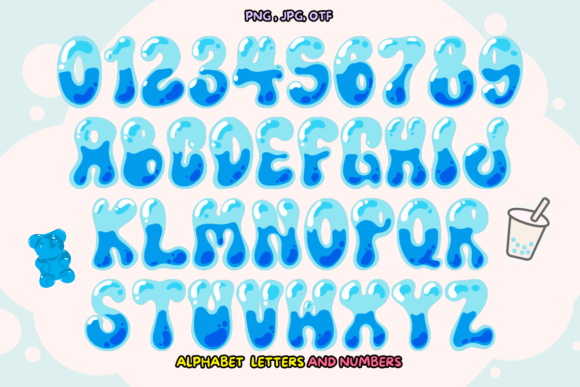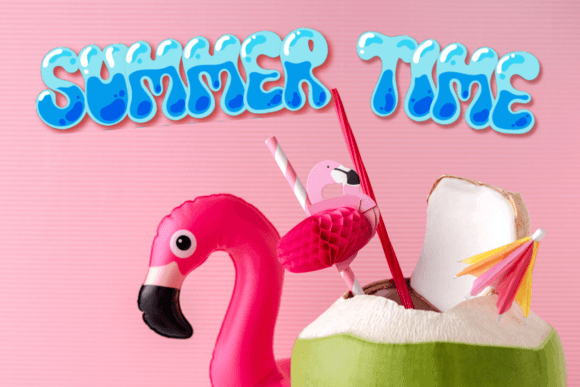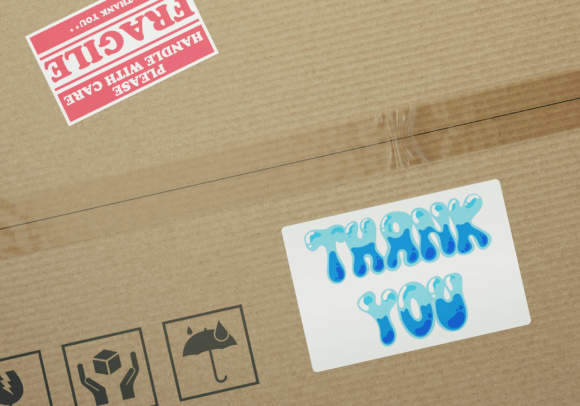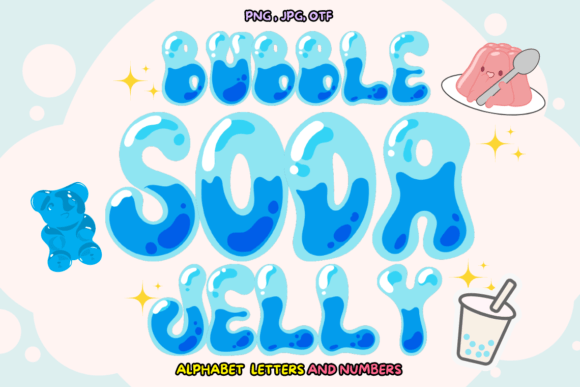
Introducing “Bubble Soda Jelly Color” Font: A Bubbly and Refreshing Handwritten Typeface
Are you tired of using the same old fonts in your designs? Do you want to add a fun and vibrant touch to your projects? Look no further than the “Bubble Soda Jelly Color” Font! This exciting new typeface is inspired by fizzy soda bubbles and is sure to quench your thirst for creativity.
A Font that’s as Bubbly as Soda
The “Bubble Soda Jelly Color” Font is a handwritten typeface that captures the playful energy of soda bubbles. Each letter is designed to pop with vibrant colors and a carefree spirit, making it perfect for adding a splash of fun to your designs. Whether you’re working on a poster, packaging, stickers, or anything in between, this font is sure to bring a burst of flavor to your projects.
Key Features of the “Bubble Soda Jelly Color” Font
• Vibrant Colors: The “Bubble Soda Jelly Color” Font features bright, bold colors that are sure to grab attention.
• Playful Energy: Each letter is designed to capture the carefree spirit of soda bubbles, making it perfect for designs that need a fun and lively touch.
• Handwritten Typeface: This font is a handwritten typeface, giving it a personal and unique feel.
• Opentype-SVG: The “Bubble Soda Jelly Color” Font is a color font (Opentype-SVG), making it compatible with PhotoShop and Illustrator.
Here are some tips for designers and crafters who want to get the most out of the “Bubble Soda Jelly Color” Font:
• Experiment with Colors: Don’t be afraid to experiment with different colors and color combinations to create a unique look.
• Mix and Match: Mix and match the “Bubble Soda Jelly Color” Font with other fonts to create a unique and eye-catching design.
• Use on a Variety of Projects: This font is versatile and can be used on a variety of projects, from posters and packaging to stickers and more.
The “Bubble Soda Jelly Color” Font is a fun and vibrant typeface that’s sure to add a burst of flavor to your designs. With its playful energy and bright colors, this font is perfect for designers and crafters who want to create eye-catching and unique projects. So why wait? Download the “Bubble Soda Jelly Color” Font today and start quenching your thirst for creativity!